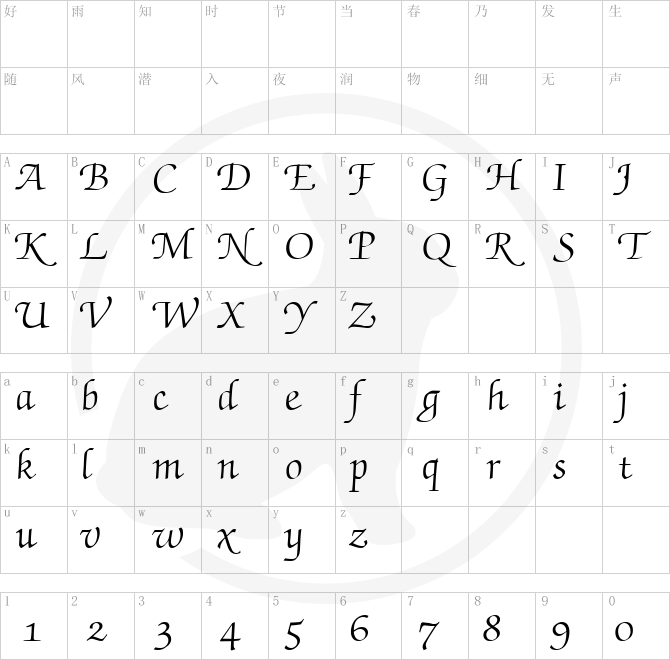
- Font Name:Zapf Chancery Swash BQ
- Full Name:Zapf Chancery* Swash Light
Zapf-Chancery-Swash-Light.ttf is a very beautiful artistic font, Zapf-Chancery-Swash-Light.ttf is widely used in the design and printing of various books and pictures,Zapf-Chancery-Swash-Light.ttf has a strong visual impact,Zapf-Chancery-Swash-Light.ttf is a commonly used font in newspapers, magazines and books, and is used in posters, e-commerce Poster design, store design, logo design, font design and other fields.Zapf-Chancery-Swash-Light.